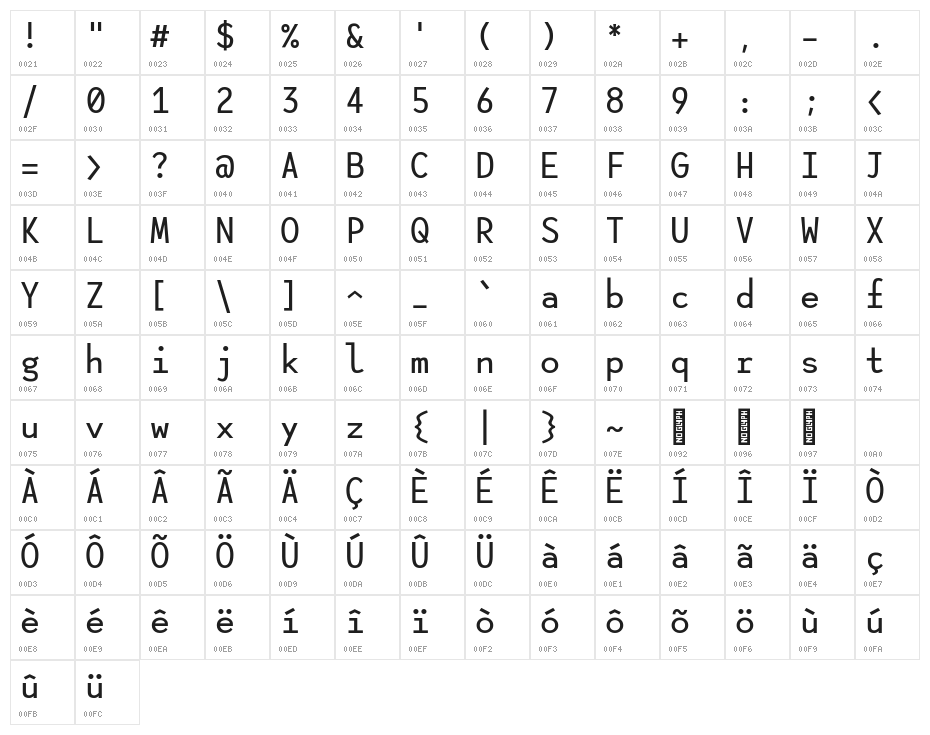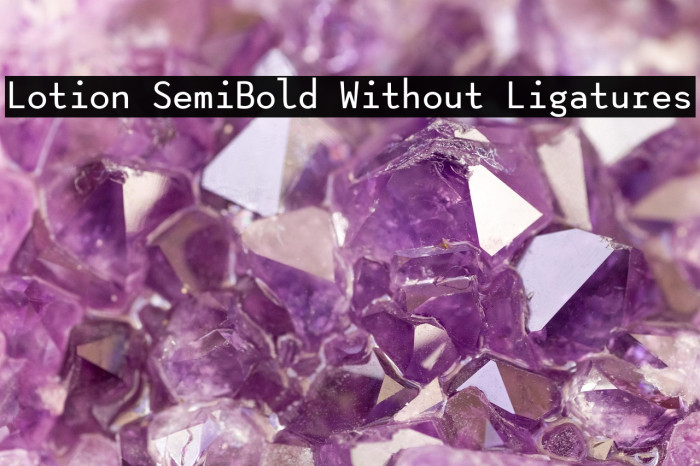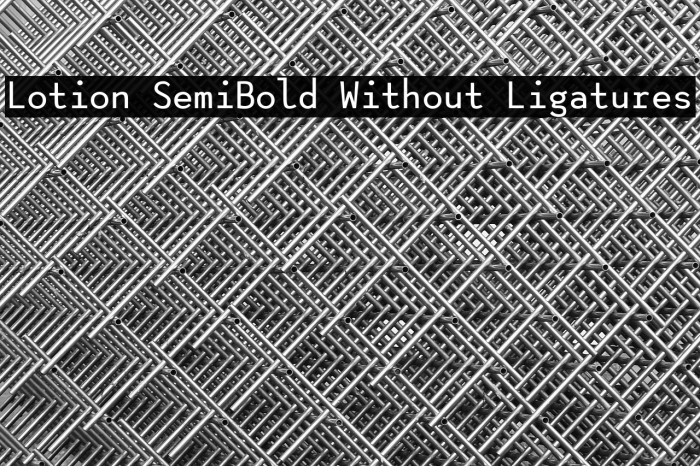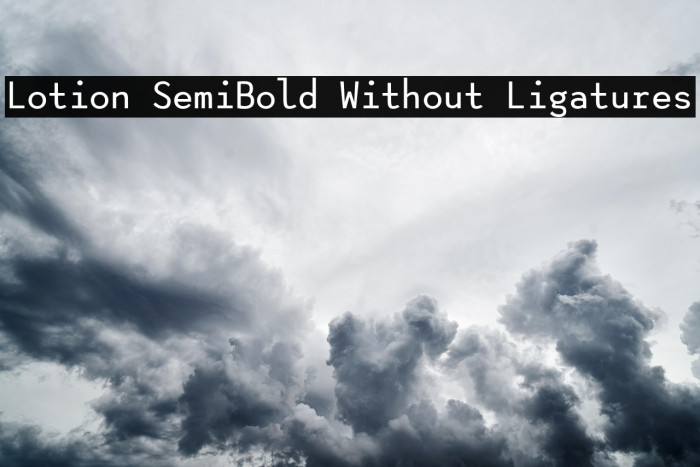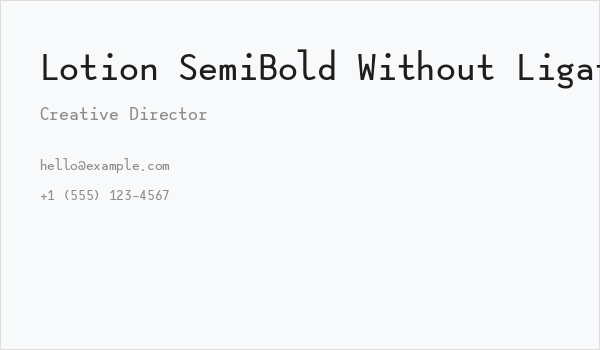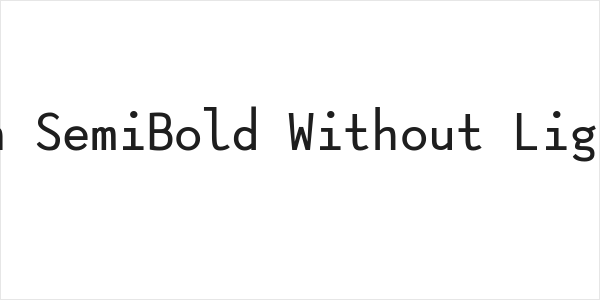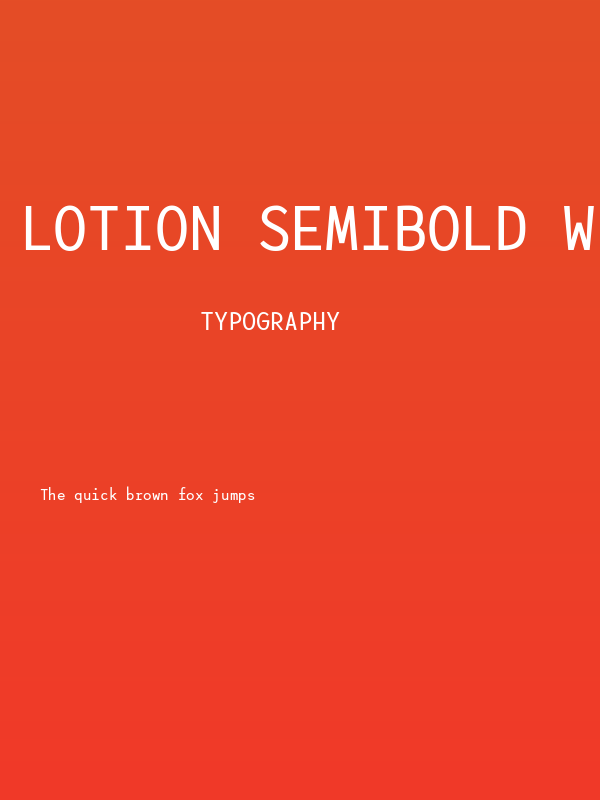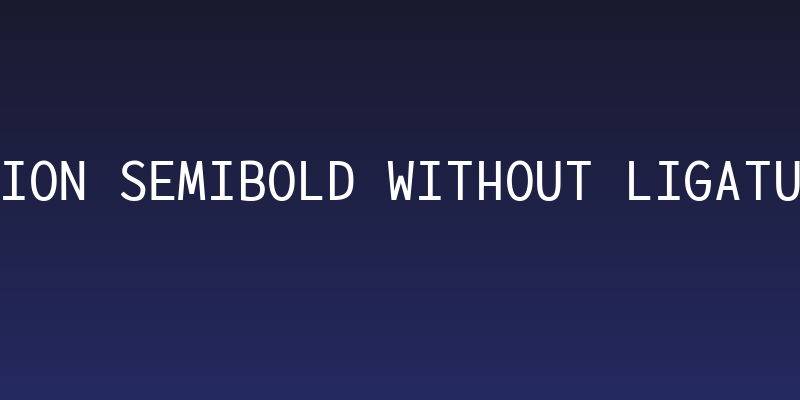
Lotion SemiBold Without Ligatures Font
Lotion SemiBold Without Ligatures Description
This font features a clean and modern sans-serif style with a semi-bold weight, offering a balanced and legible appearance. The characters are well-proportioned with a consistent stroke width, providing a uniform look across both uppercase and lowercase letters. The numerals and special characters maintain the same clarity and simplicity, making it suitable for various applications. The lack of ligatures enhances its straightforward and functional design, while the slightly rounded edges add a touch of softness to the otherwise geometric structure.
| Proposed Projects | Ideal for branding, web design, user interfaces, and print media where clarity and modernity are desired. |